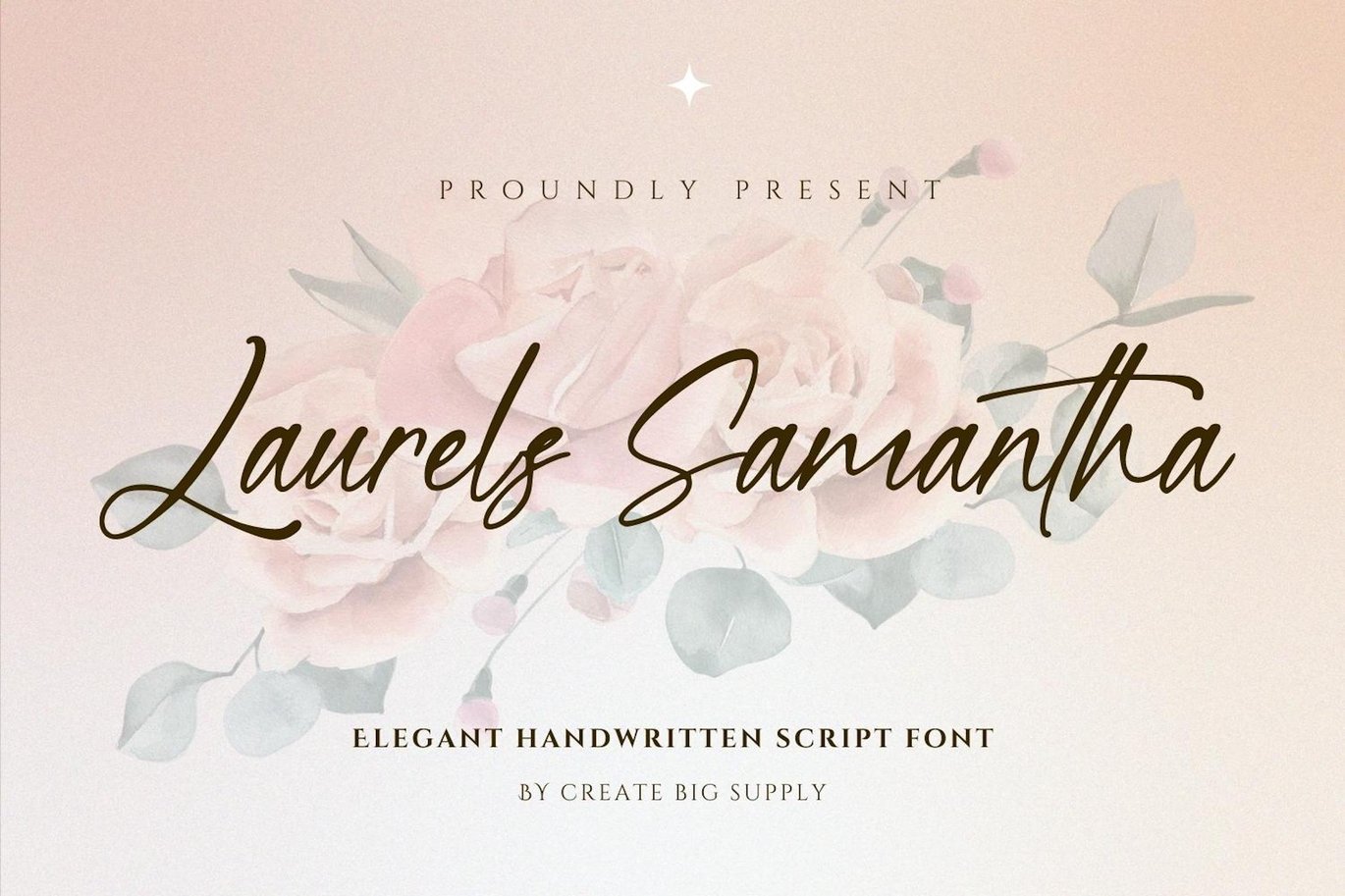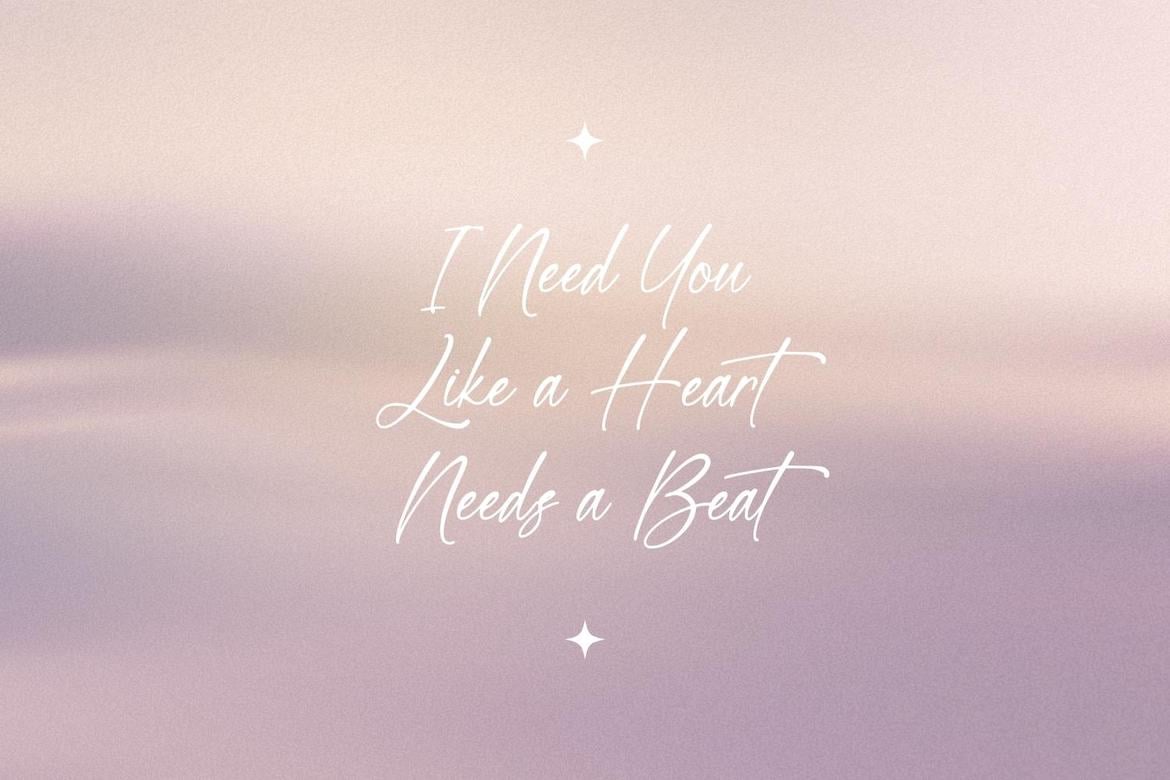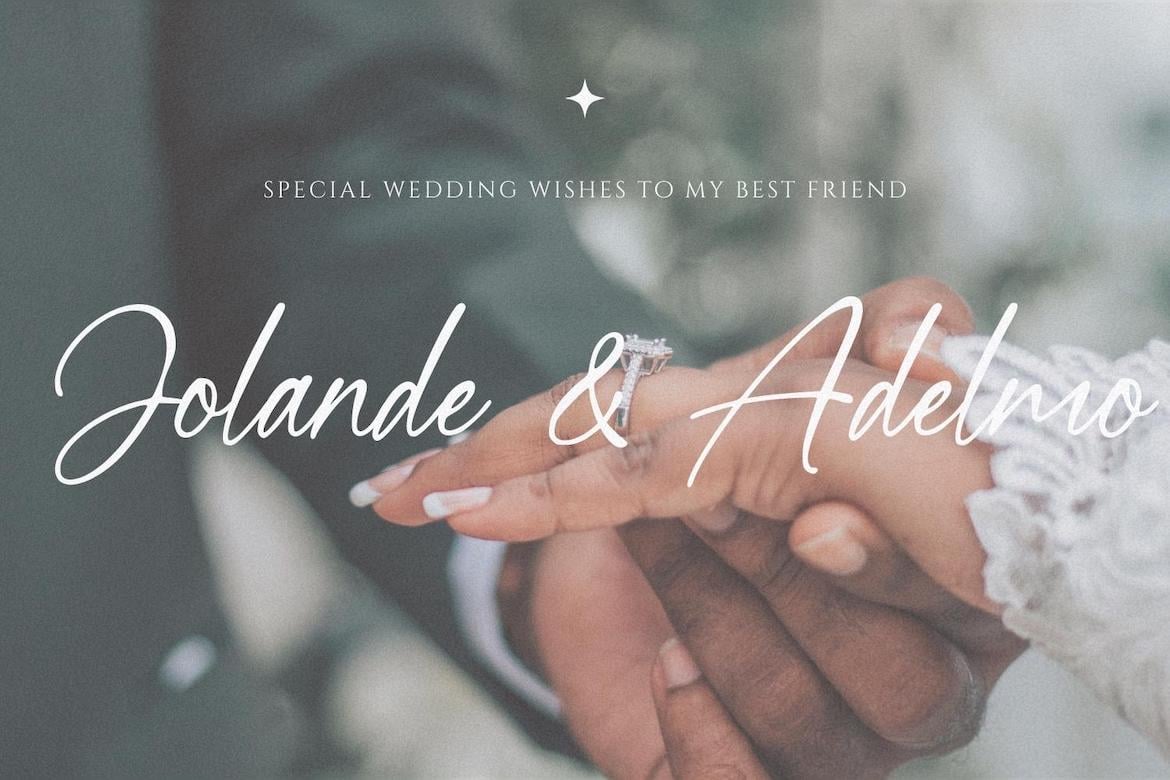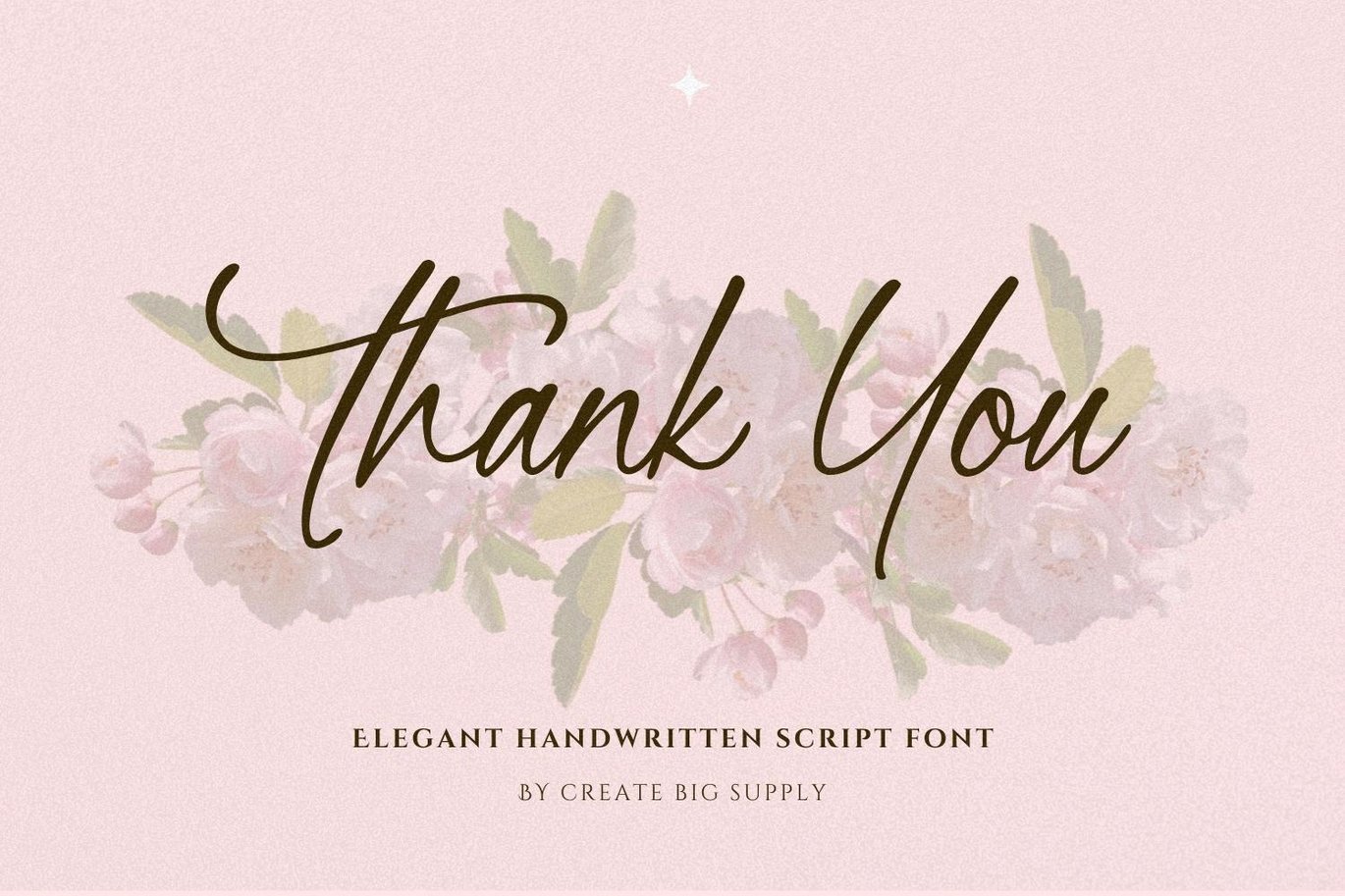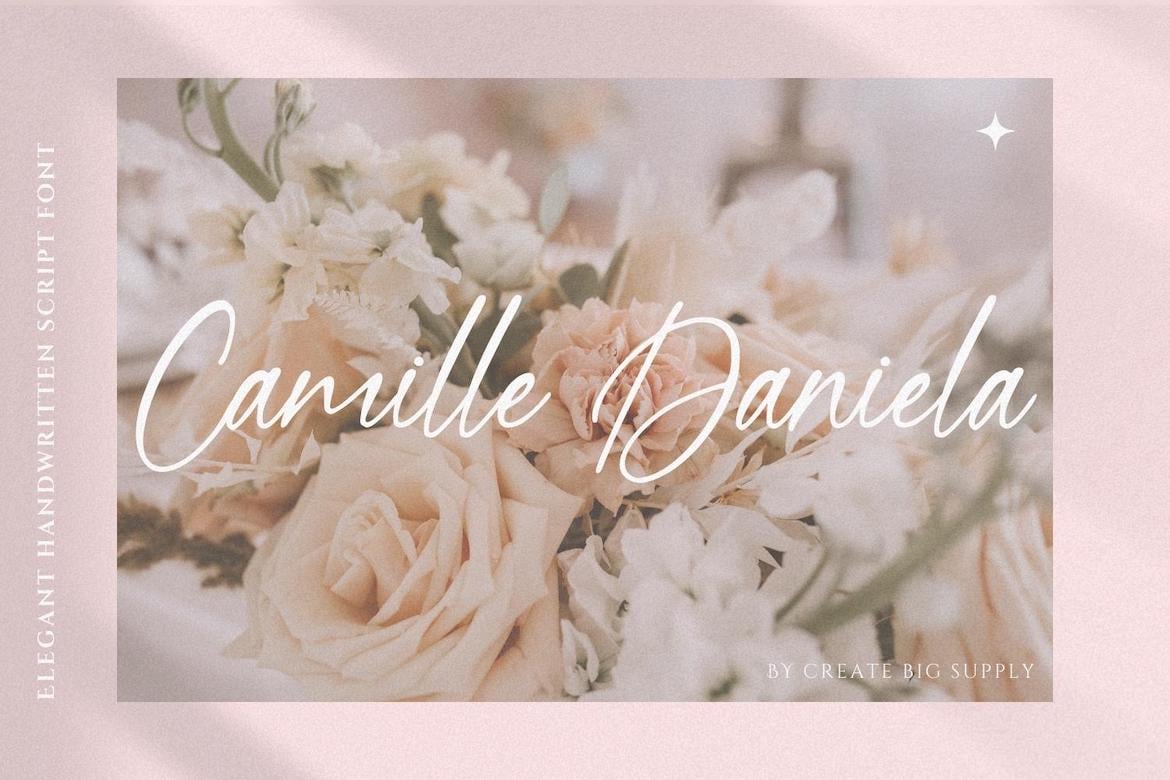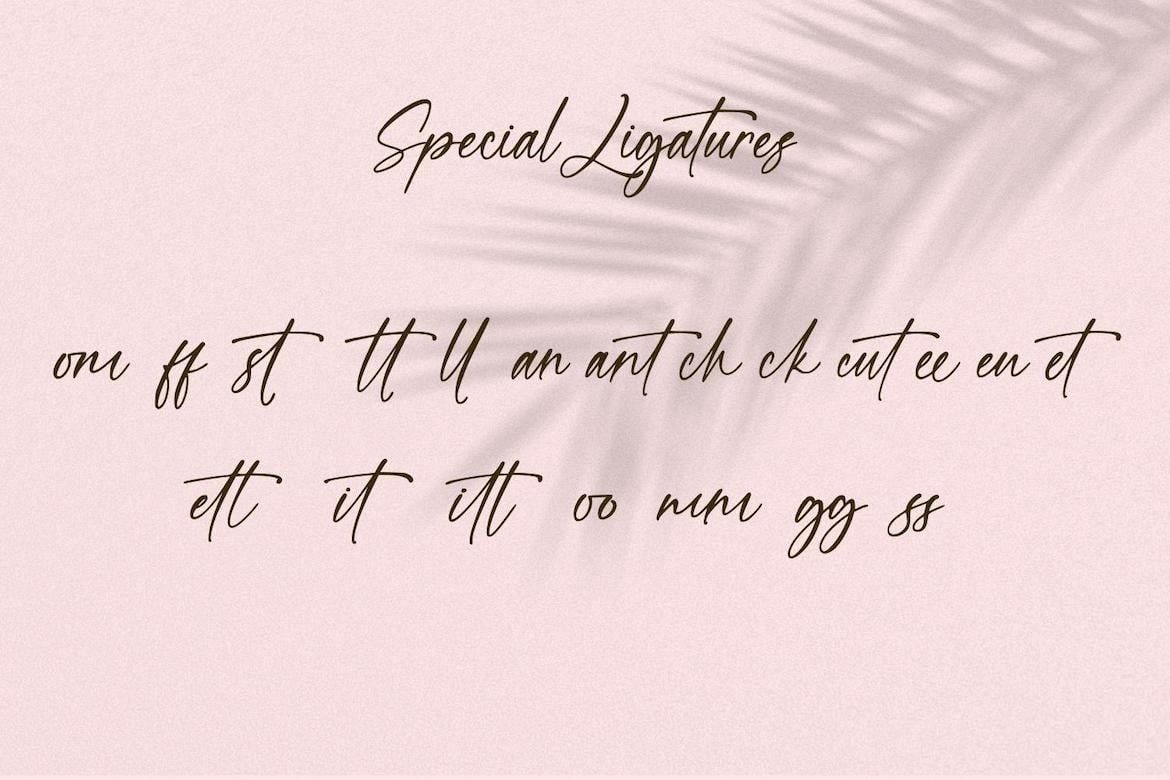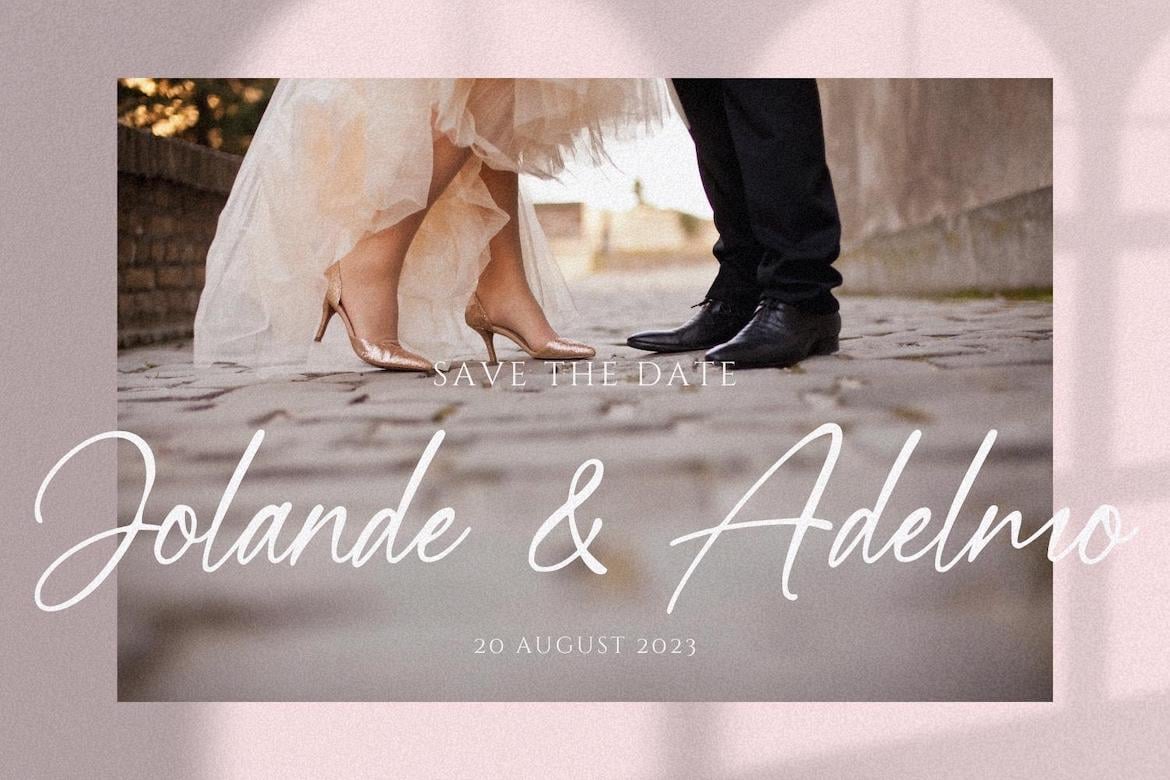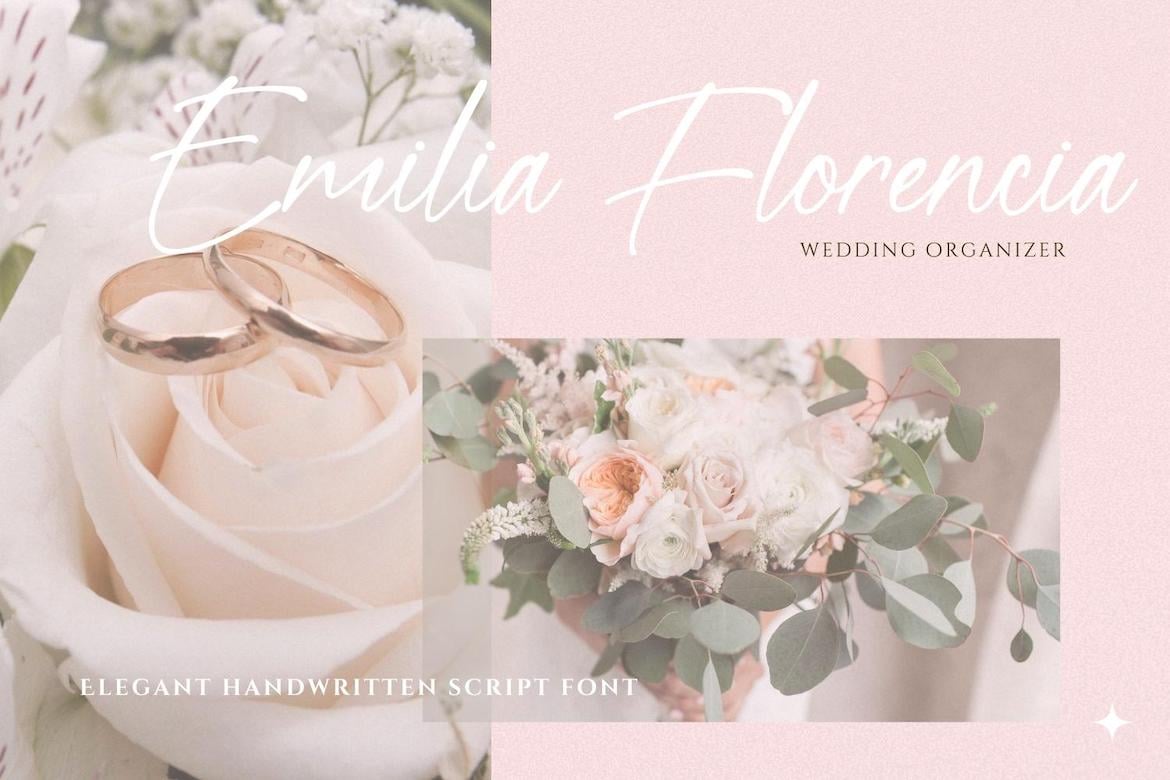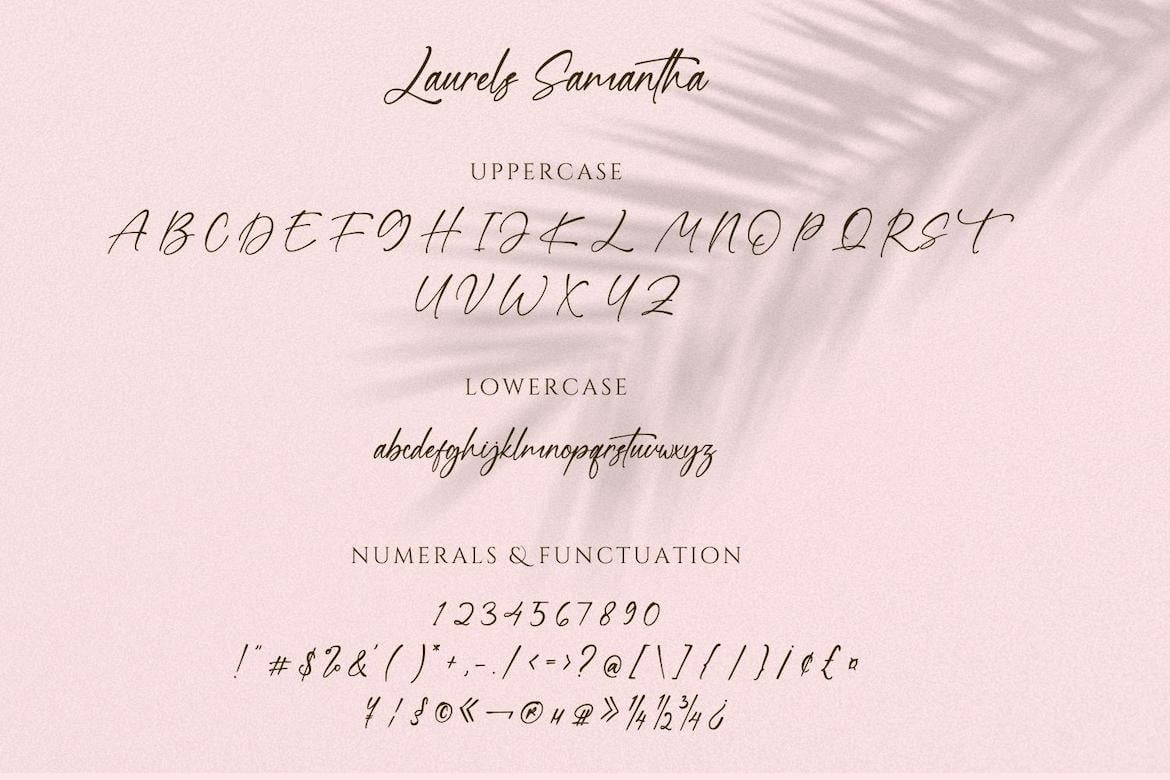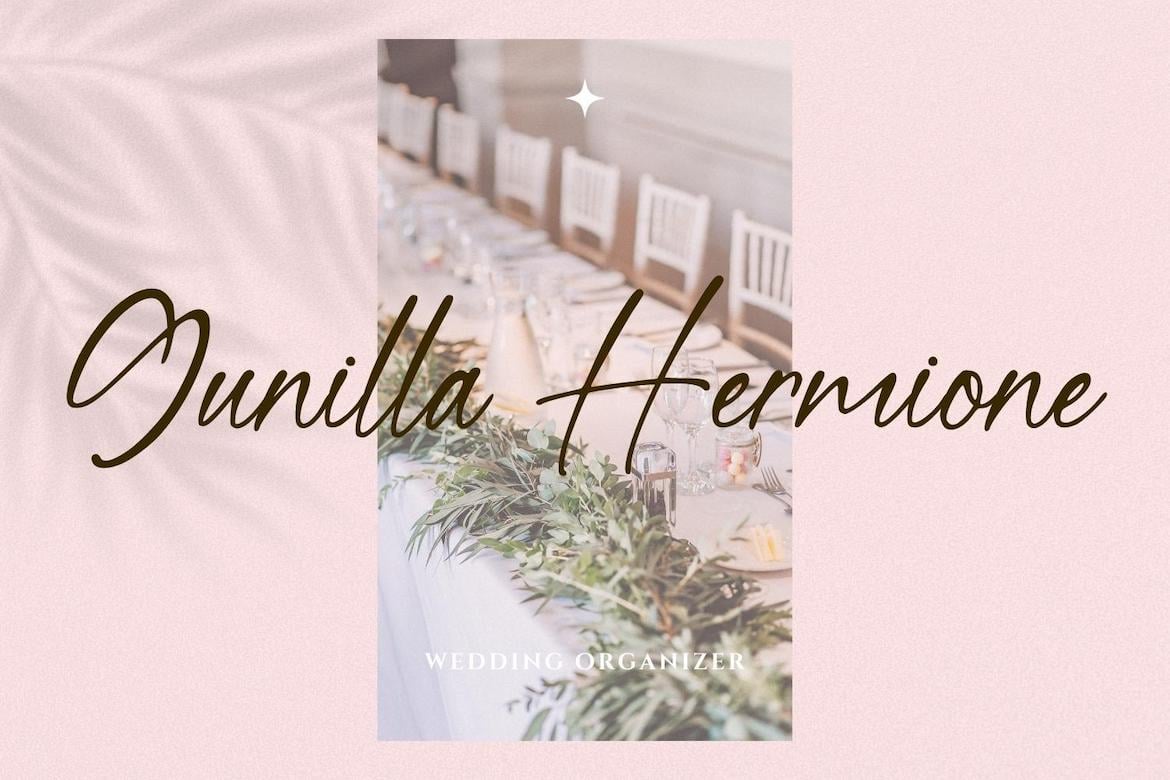
Laurels Samantha Stylish Handwritten Cursive Font
Stylish Handwritten Cursive Font adds a touch of sophistication to your projects. With its elegant flow and modern design, it’s perfect for branding, invitations, and social media posts.